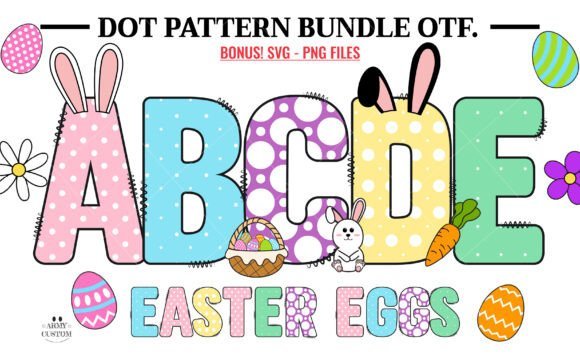
The Perfect Blend of Creativity and Style
Have you ever sat down with a blank sheet of paper, waiting for inspiration to strike, only to find yourself doodling aimlessly as the hours tick by? This is the moment when the magic happens – the moment when a simple doodle can transform into a work of art. And that’s exactly what the Dot Army Bundle Font is all about.
This exquisite font is a carefully crafted blend of visual appeal and artistic flair, designed to evoke a sense of warmth and affection in every stroke. Whether you’re a seasoned designer or a creative enthusiast, the Dot Army Bundle Font is the perfect tool to add a touch of elegance and sophistication to your work. With its unique design and seamless compatibility with various design programs, this font is sure to leave an indelible imprint on each viewer’s heart.
Key Features of Dot Army Bundle Font
- Font Family: Dot Army Bundle Font includes 4 unique font families: Dot Army, Dot Army Text, Dot Army Display, and Dot Army Sans.
- Unique Characteristics: Dot Army Bundle Font features a unique blend of modern and vintage elements, with intricate details and textures that add a touch of personality to any design.
- Language Support: Supports multiple languages, including Latin, Cyrillic, and Greek alphabets, making it a versatile choice for global designs.
Designer Review: Dot Army Bundle Font
Overall, I’m quite impressed with the Dot Army Bundle Font. It’s a collection of 4 unique fonts that can add a fun and playful touch to any design project. Here’s what I like about it: ✨
- Highly customizable: Each font comes with a range of options to adjust the style, from subtle tweaks to drastic changes.
- Excellent legibility: Even at small font sizes, the text remains clear and easy to read.
- Unique character set: The fonts include a wide range of special characters, making it perfect for designs that require a lot of icons and symbols.
However, there are a few limitations I’d like to point out: ⚠️
- Not ideal for formal designs: The playful nature of the fonts might not be suitable for more serious or formal projects.
- Limited bold and italic options: While the fonts are highly customizable, the bold and italic versions are somewhat limited.
Overall, I’d give the Dot Army Bundle Font 4 out of 5 stars. It’s a great choice for designers who want to add some personality to their projects, but might not be the best fit for more formal or corporate designs. With a little creativity, it’s easy to make the most of this versatile font bundle.